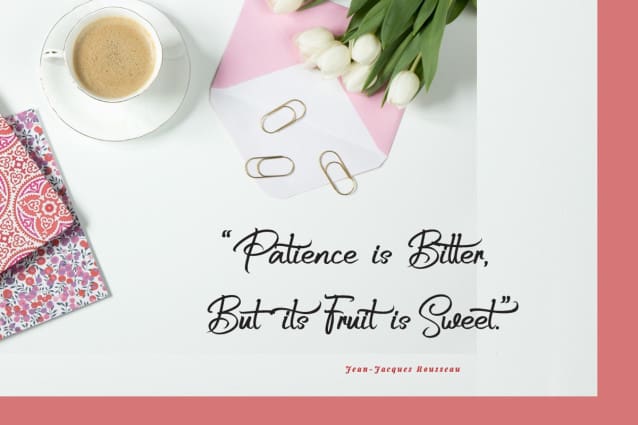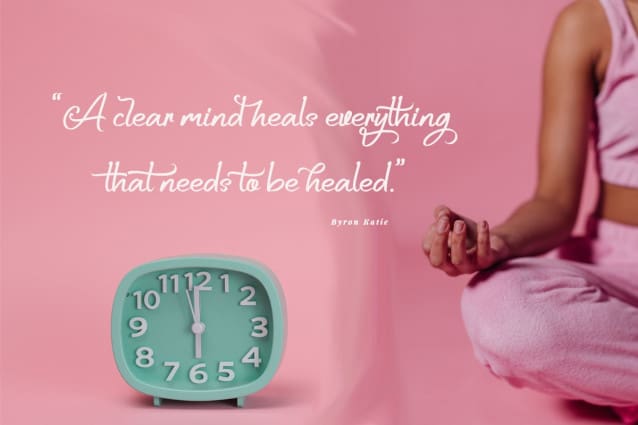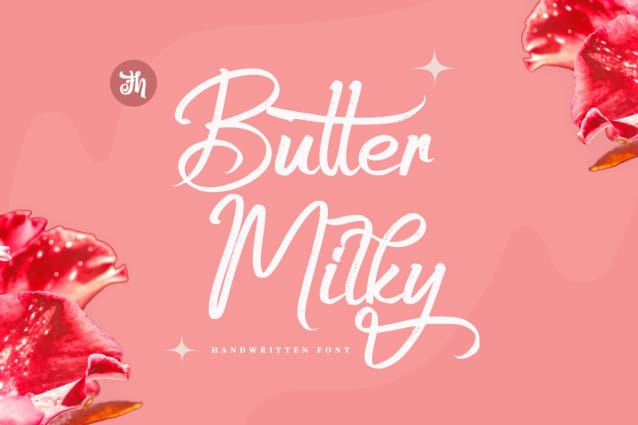
Butter Milky Font
Butter Milky Font is script font with handwritten vintage caligraphy style, with OpenType feature include of the font. Suitable for design, element design, event, logo, and awesome work, etc…